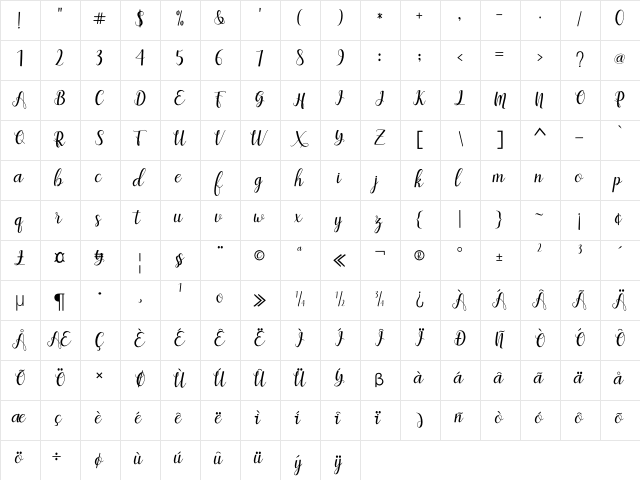
Jealous Script Regular Font Preview
Jealous Script Regular
Jealous Script Regular Font Details
Design Context for Jealous Script Typeface
Jealous Script brings a calligraphic fluidity to the page — its connecting strokes and expressive curves give it an unmistakably human quality.
Font Pairing: Combine Jealous Script with a simple geometric sans for maximum contrast — the tension between flowing curves and clean structure is a classic typographic pairing.
Pro Tip: Pair Jealous Script with a clean sans-serif for supporting text. The contrast between fluid script and geometric structure creates an elegant typographic hierarchy.